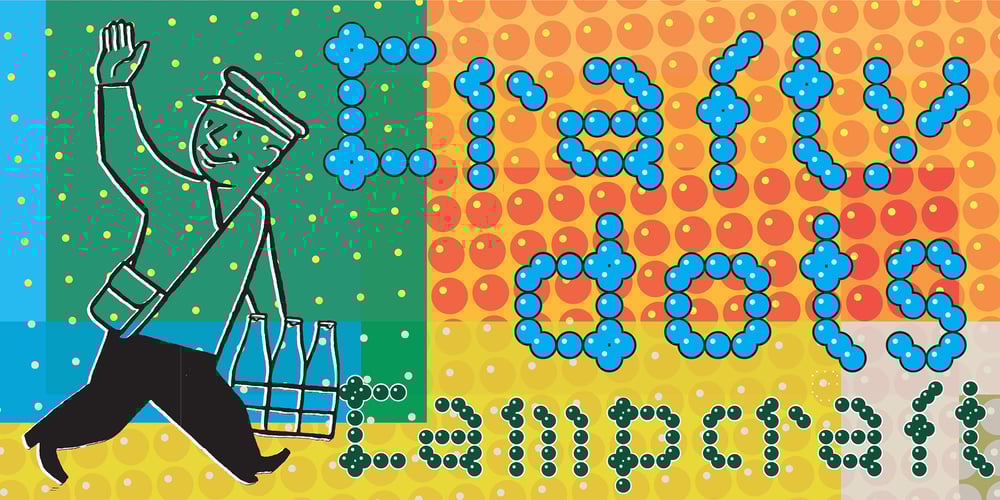
Campcraft
Campcraft font
Campcraft Font Family was designed by Russell A. McGorman and published by Our House Graphics. Campcraft contains 4 styles and family package options. Remember those plastic Popsicle sticks that clicked together and you could make things from them with your sticky little fingers? Things like… camp crafts. Well, no� Of course you don’t. You were too young. That�s why there is Campcraft.This is a fun loving dot-matrix font, or it would be a fun loving dot-matrix if the vertical and horizontal grid lines didn’t pile up at the intersections. Then again, it wouldn’t be any fun if they didn’t pile up at the intersections, would it?Strictly a display type… Campcraft is excellent for what the name suggests. I goes well with Christmas sweaters, beaded jackets and purses and that time when we were all happy children with sticky little fingers.